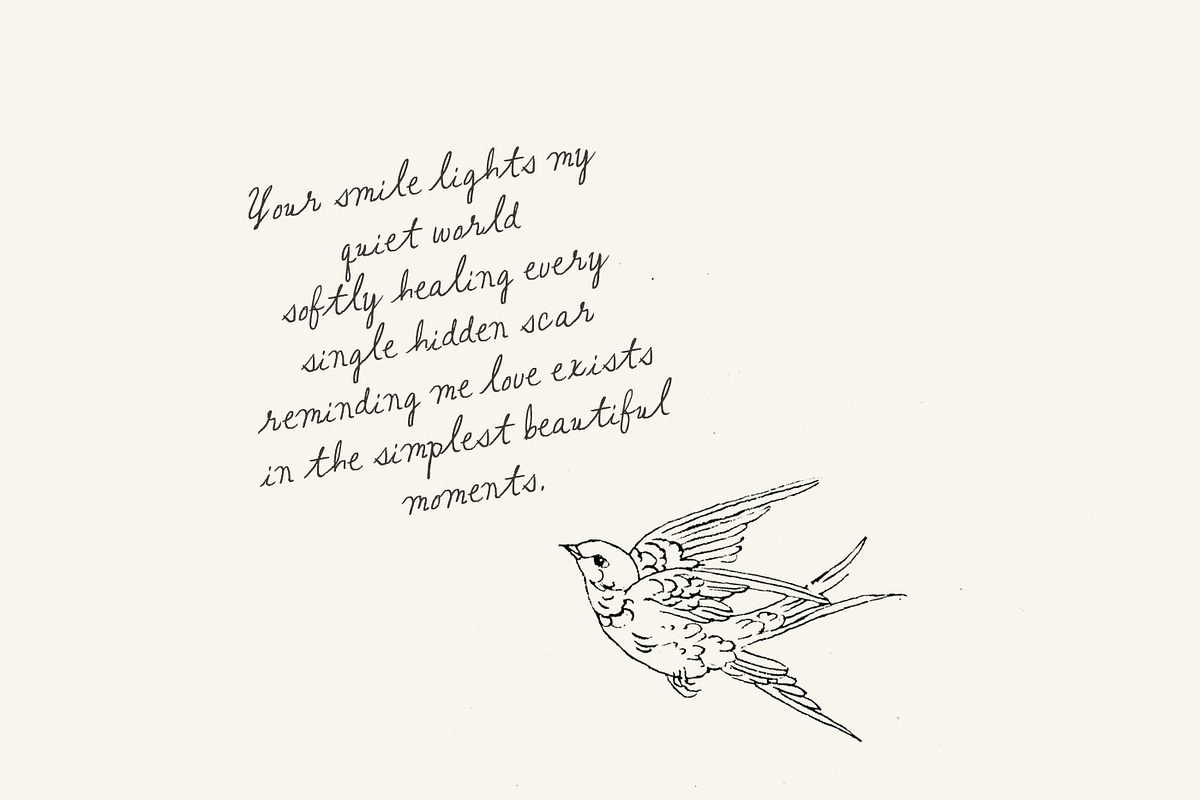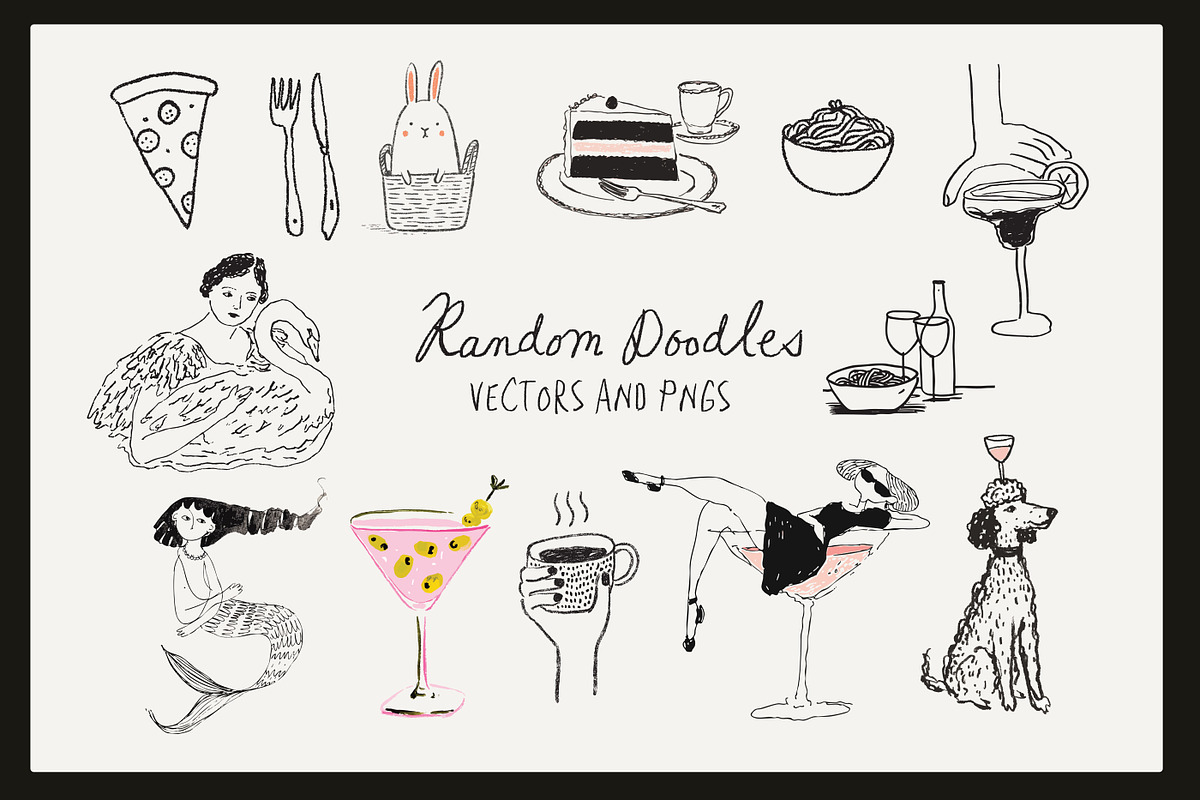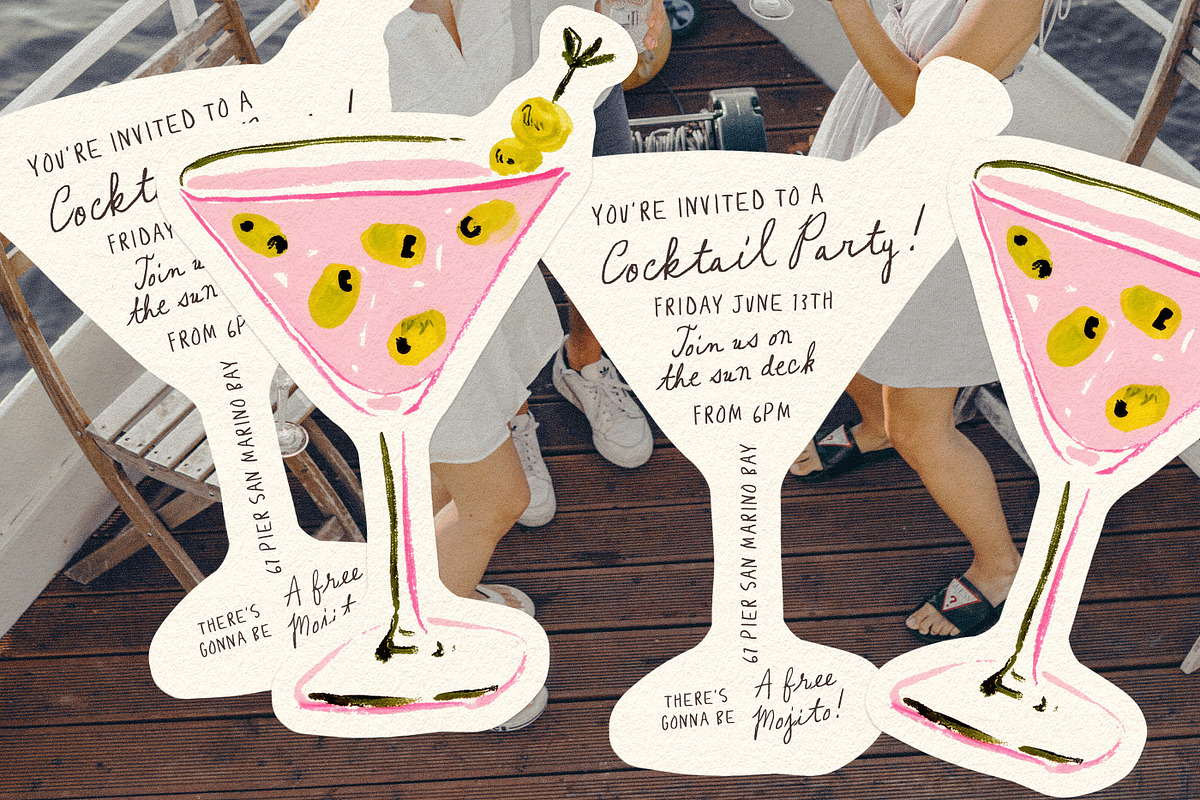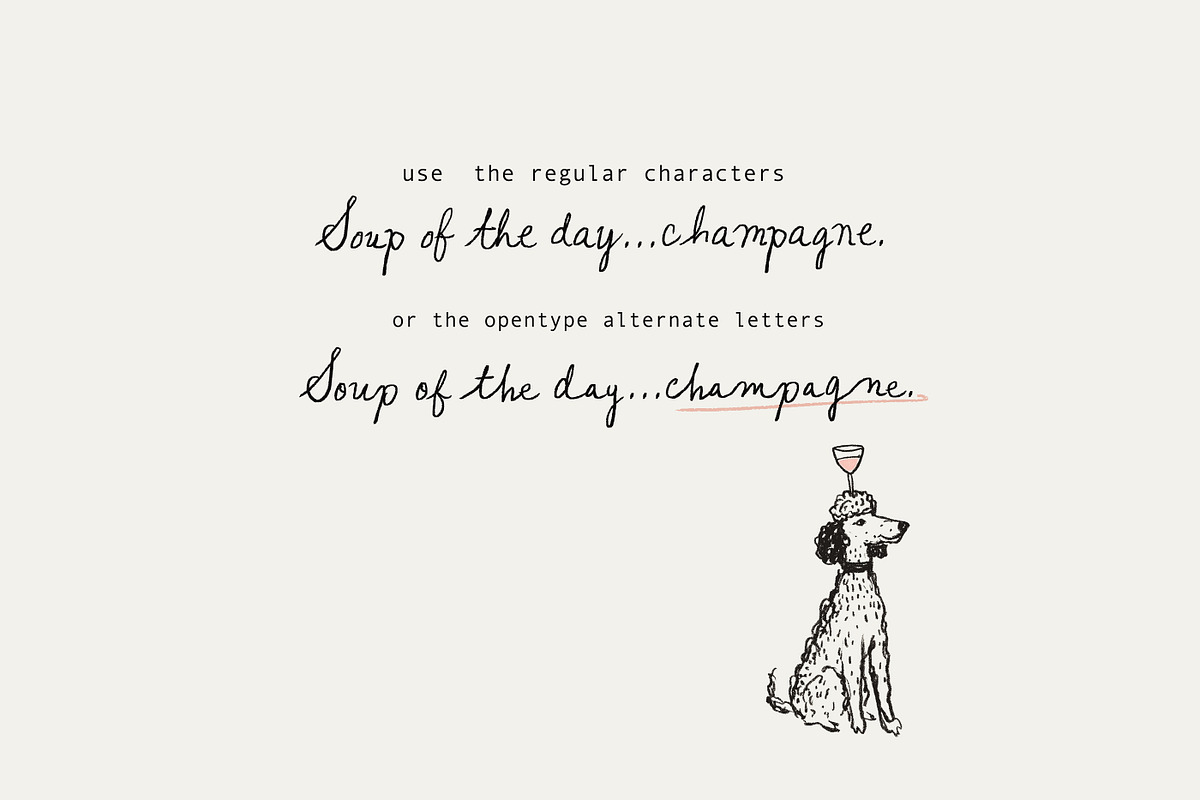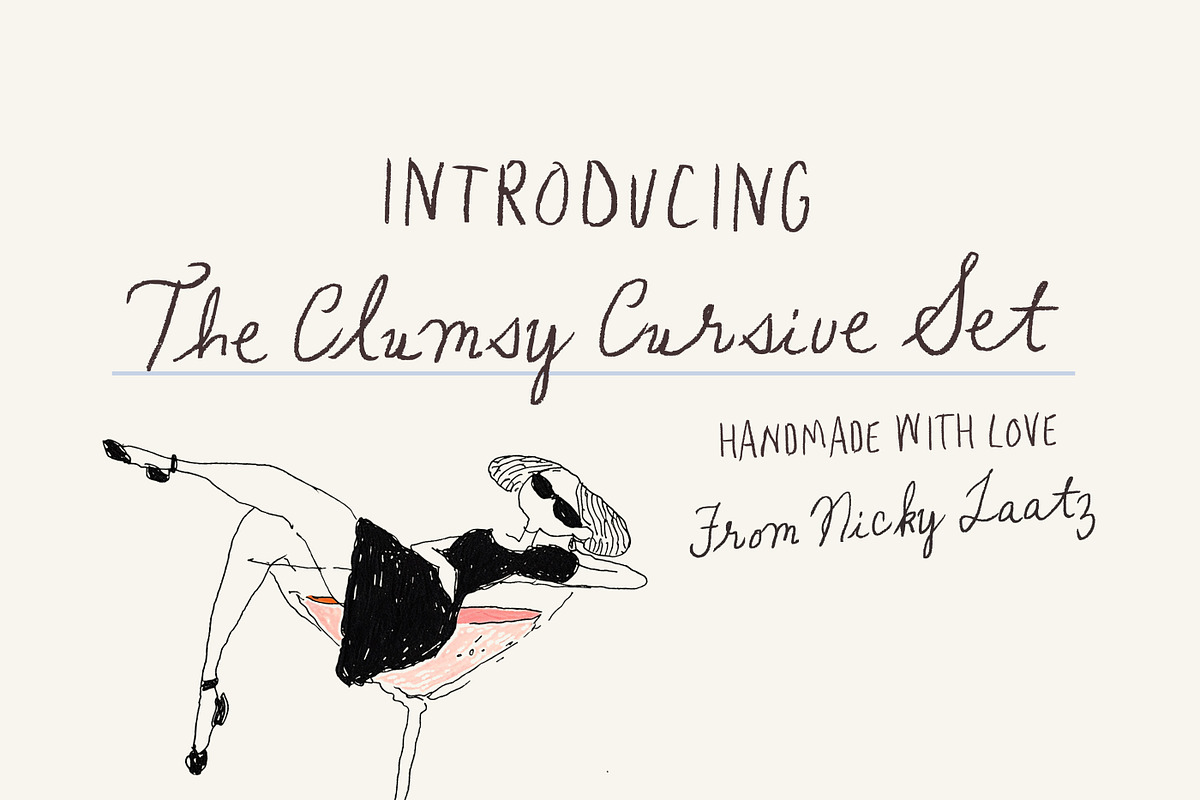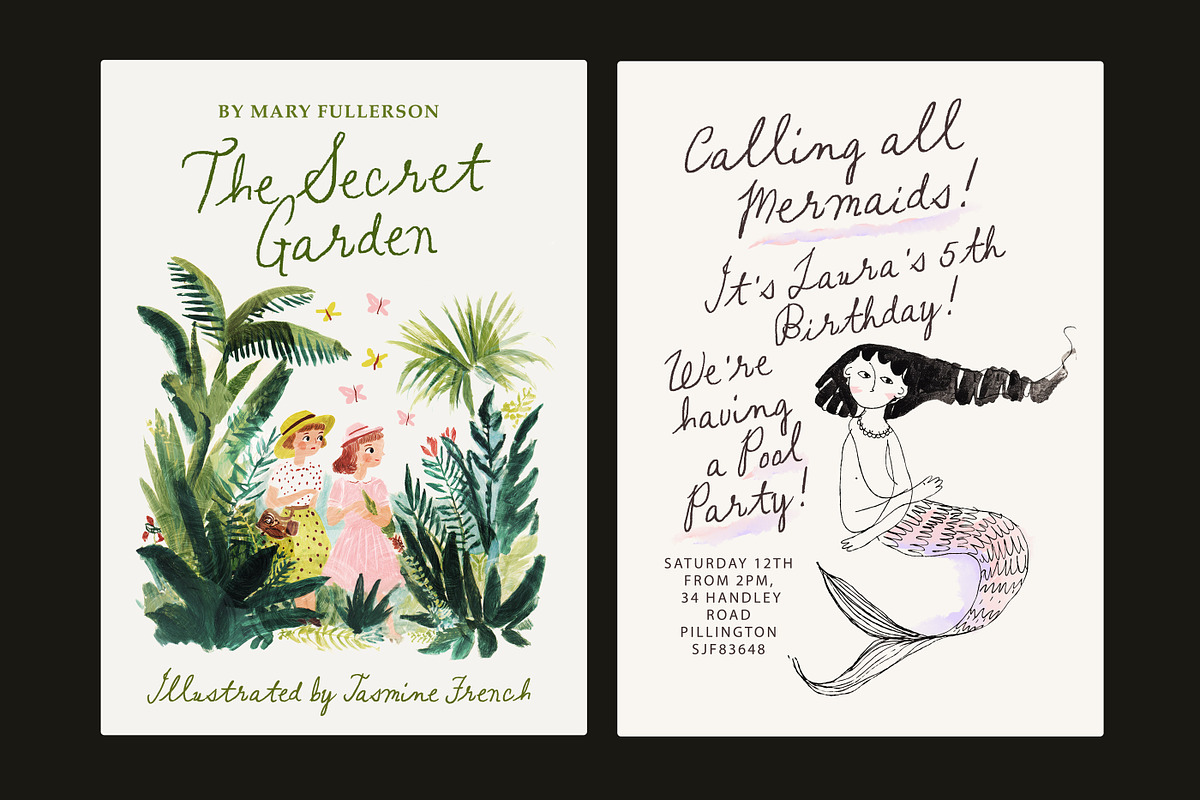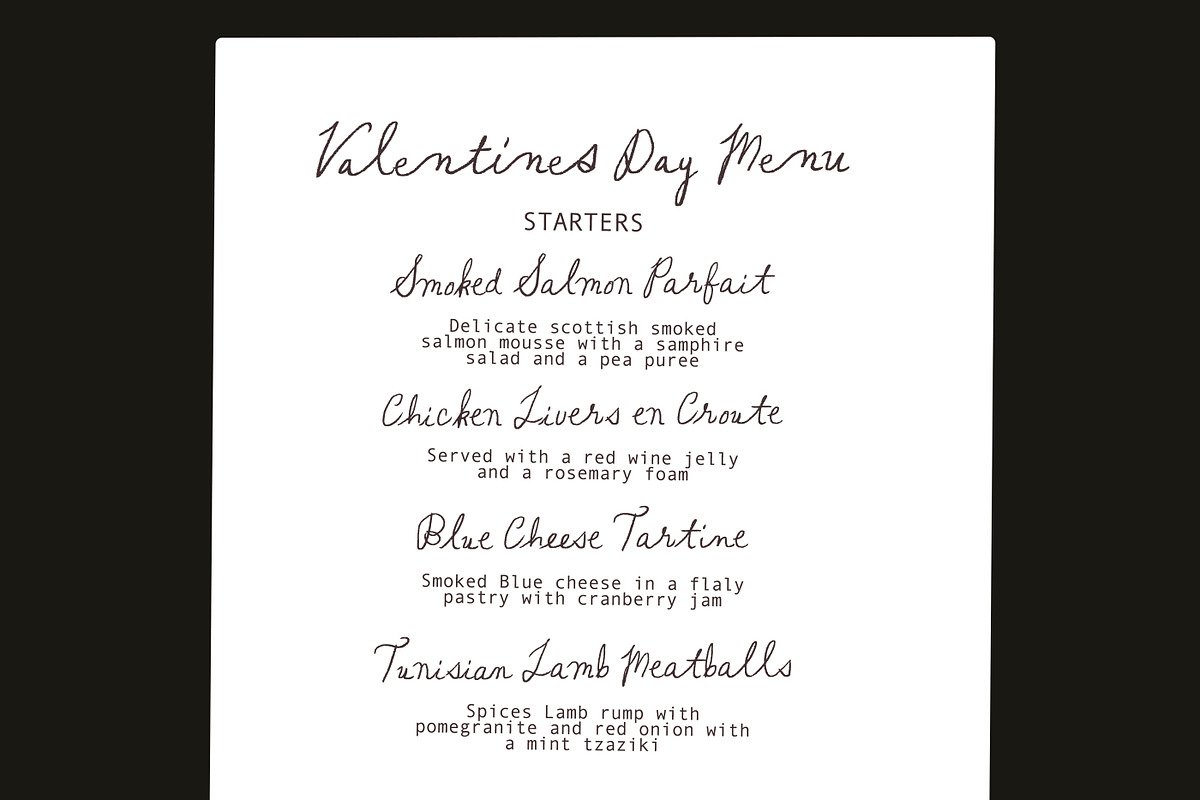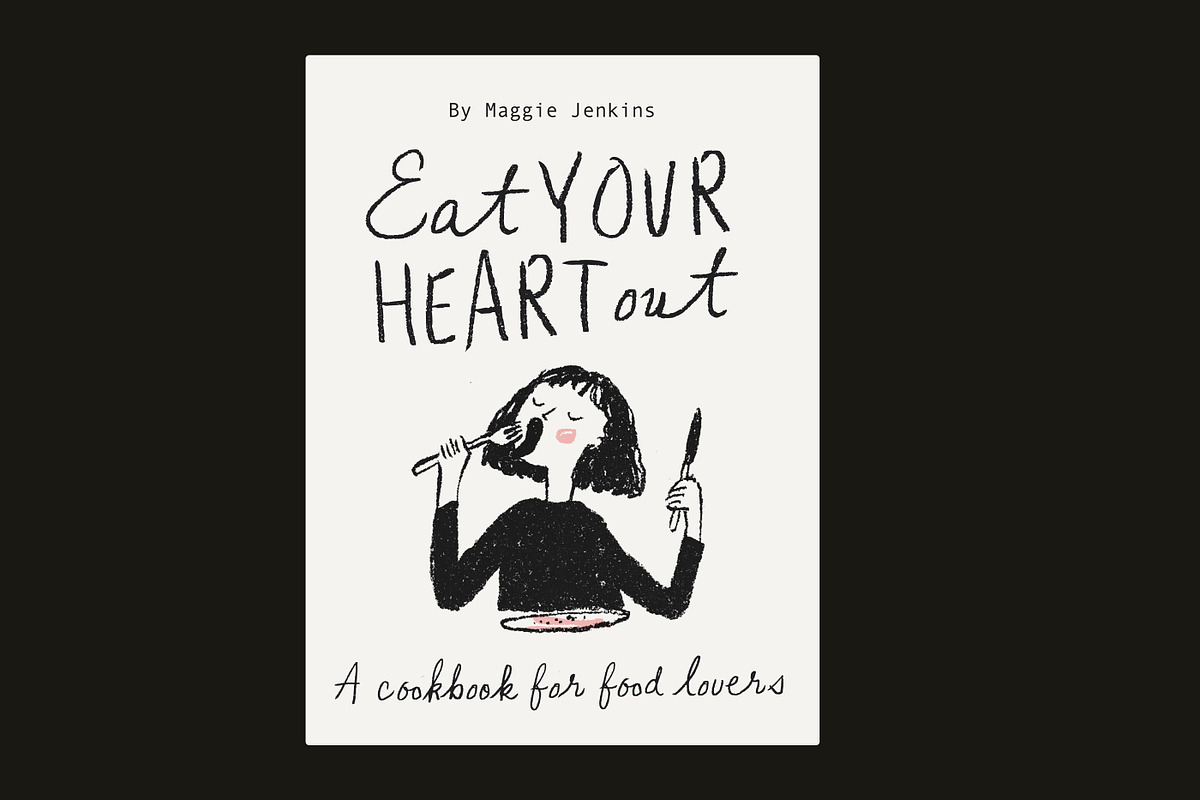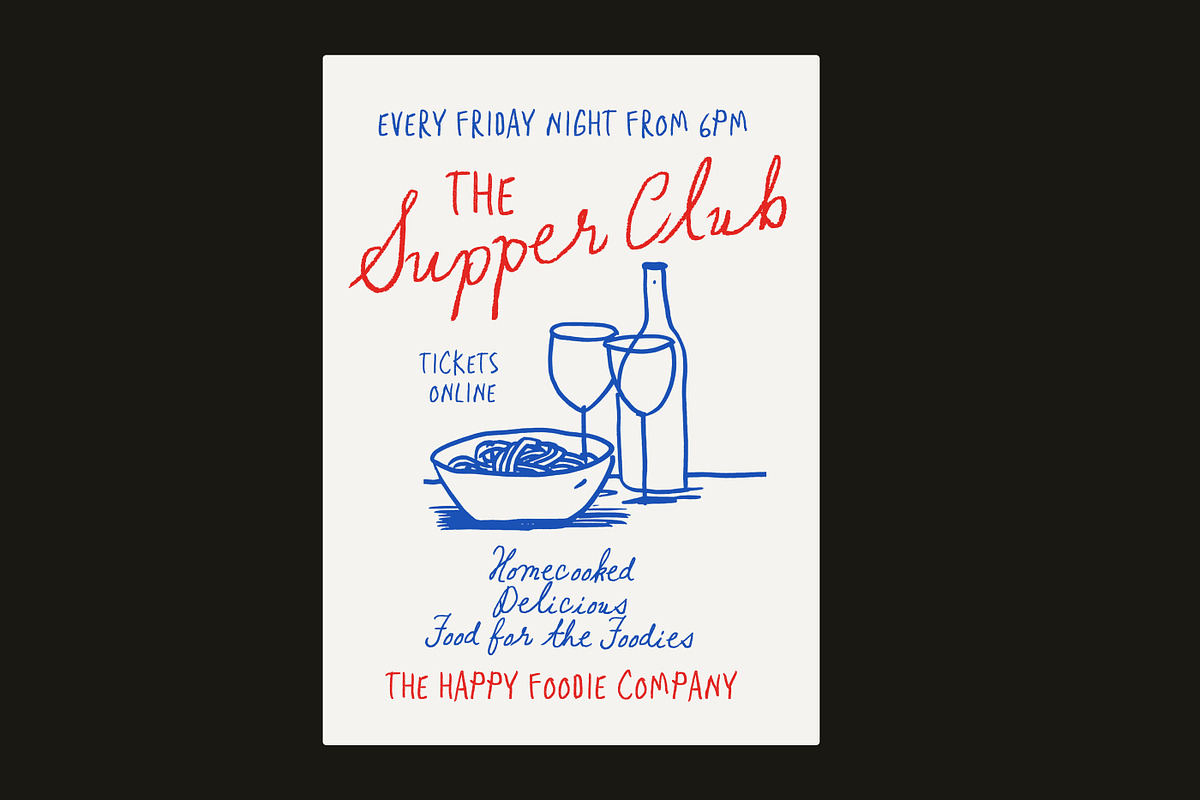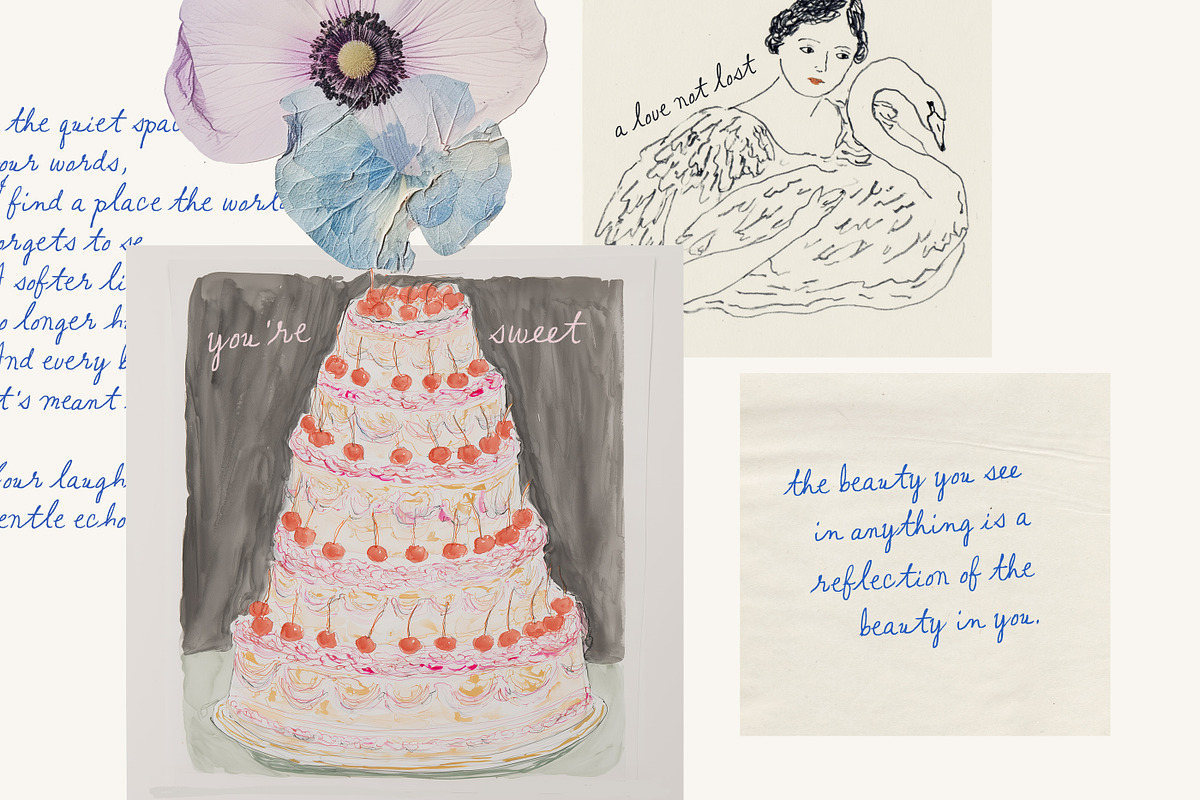
The Clumsy Cursive Font Set
Say hello to the Clumsy Cursive Font set!
A unapologetically awkward handwritten cursive font coupled with an equally quirky All caps companion. Perfect for conveying lightehearted whimsy and playful nonesense!
Pencilled with love, a set of lightly textured fonts to convey authentic warmth and charm.
Great for charming handwritten notes, poetry and quotes - Also perfect for whimsical wedding and party themes, cute illustrative works and any project needing a little touch of humble naivety.
The script includes Opentype Alternate letters for the lowercase letters and well as a selection of natural looking Opentype Ligatures to help with that authentic handwritten look.
A few random little handy doodles are included as a free bonus to get your creativity going!